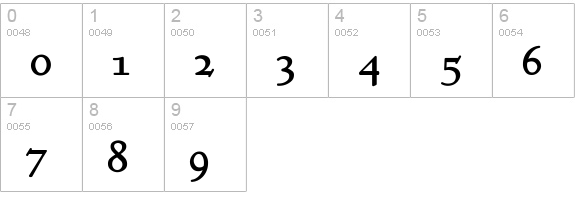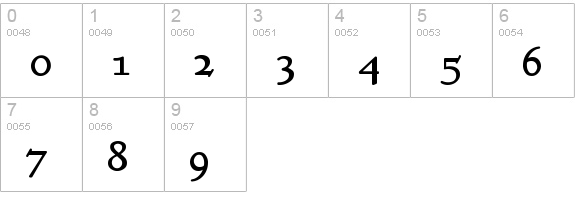
KelmscottRoman Font Details
KelmscottRoman font is a timeless classic that embodies the elegance and refinement of traditional typography. With its graceful curves and delicate serifs, this font captures the essence of the Renaissance era, adding a touch of sophistication to any design project. The meticulously crafted letterforms of KelmscottRoman font exude a sense of balance and harmony, making it a versatile choice for various applications. Whether it's a logo, a book cover, or a wedding invitation, this font effortlessly elevates the visual appeal of any composition. What makes KelmscottRoman font even more remarkable is that it is freely available to download at FontsMarket.com. Yes, you read that right - this exquisite font can be yours without any cost. Its creators believe in the power of accessibility and want to ensure that everyone has the opportunity to enjoy the beauty of KelmscottRoman font. By offering this font for free, FontsMarket.com allows designers, artists, and enthusiasts from all walks of life to incorporate this stunning typeface into their projects. Whether you're a professional graphic designer or a budding creative, KelmscottRoman font offers endless possibilities for artistic expression. So, don't miss out on this incredible opportunity to enhance your designs with the timeless beauty of KelmscottRoman font. Head over to FontsMarket.com and download it today. Let your creativity soar as you explore the versatility and elegance of this remarkable font.